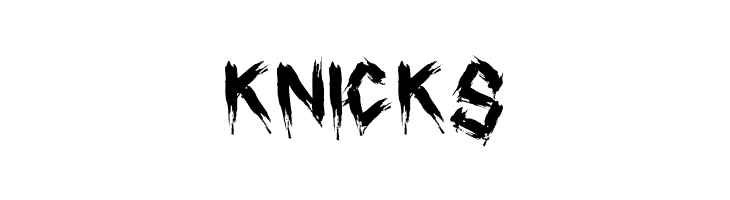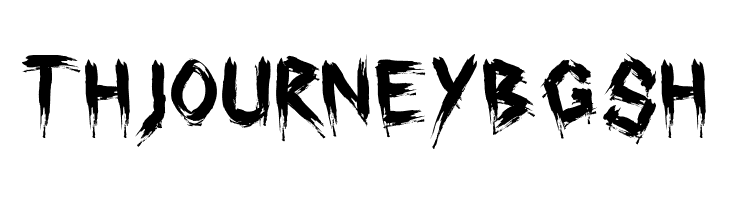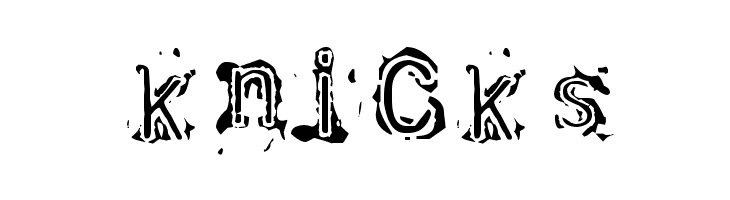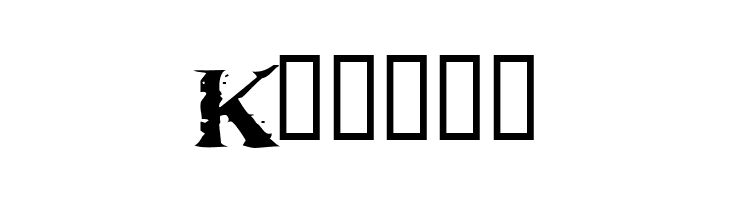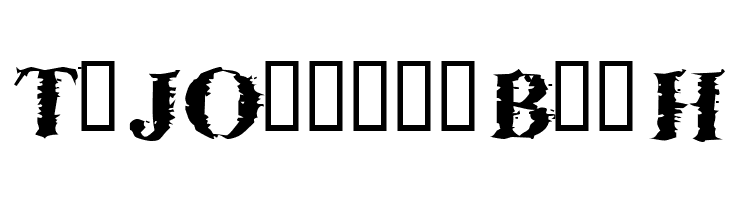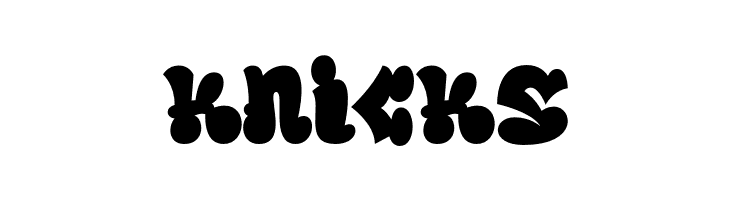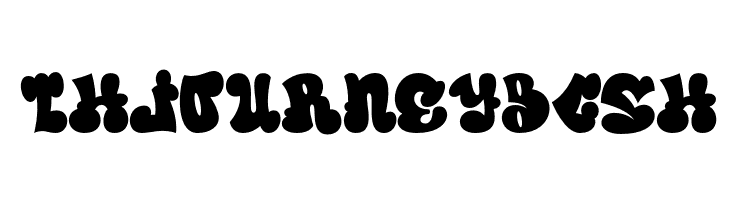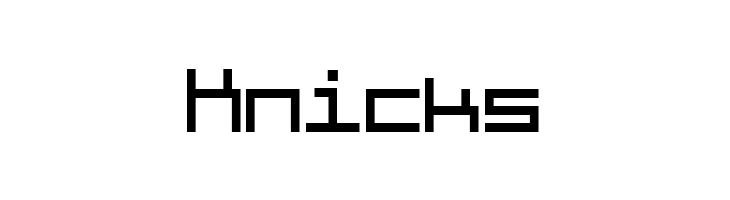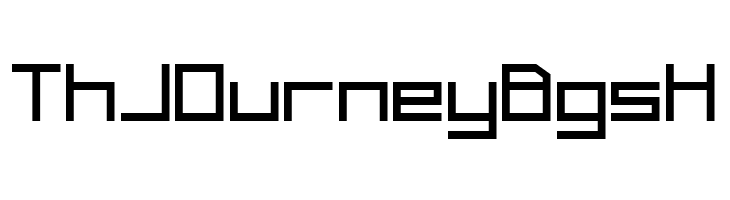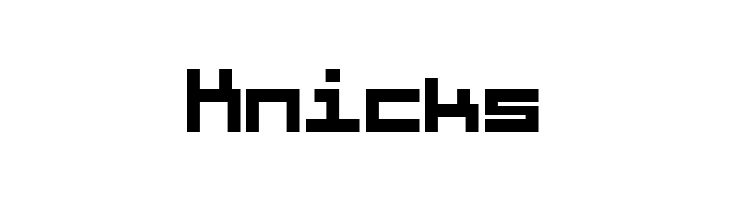
• Bracheri Regular
A bold, playful font with thick, rounded strokes and a whimsical style.
• Bracille
• Braciola MS
A geometric, blocky font with uniform line thickness and a modern, technical aesthetic.
• Braciola MS ExB Ascii
A bold, geometric font with a digital, futuristic style.
• Braciola MS ExB Stencil
A bold, geometric stencil font with a modern, futuristic style.
• Braciola MS Extrabold
A bold, geometric font with a futuristic, digital appearance.
• Brack
A bold, jagged font with sharp, brush-like strokes for a dynamic and aggressive look.
• Brackish
A bold, distressed font with jagged edges and a rugged texture.
• BrackishPond
A dynamic, handwritten font with irregular strokes and a playful style.
• Brad Rowland Free Regular
Elegant handwritten script font.